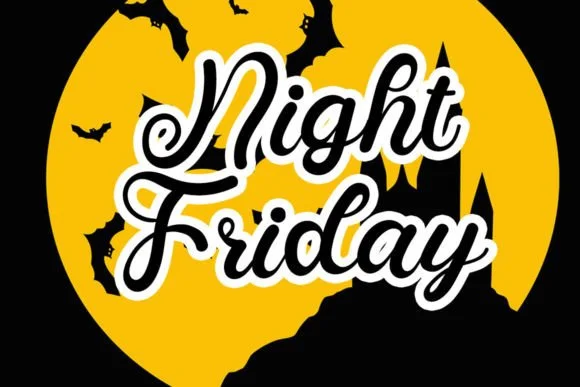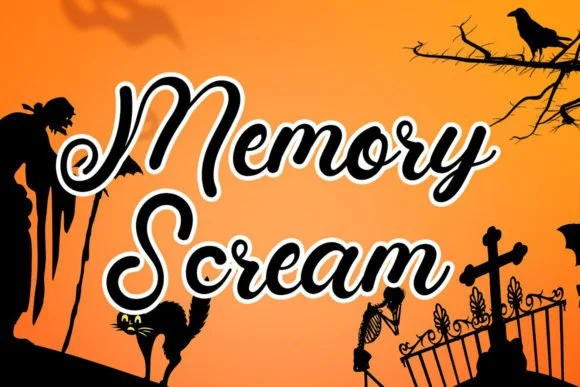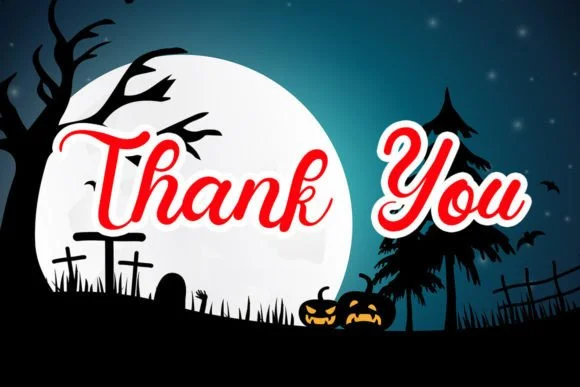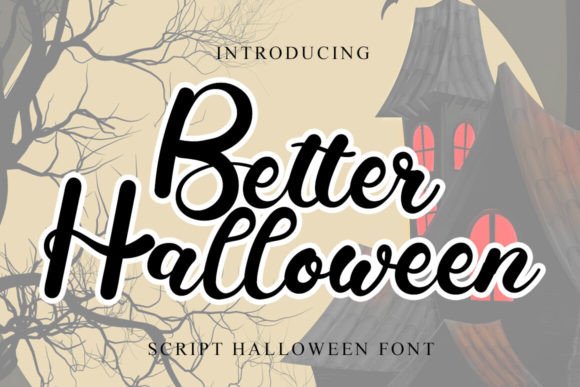
Better Halloween Font
This improved font is perfect for enhanced Halloween celebrations, upgraded spooky decorations, superior Halloween marketing, premium Halloween events, elevated seasonal branding, advanced Halloween displays, improved Halloween invitations, better Halloween experiences, enhanced seasonal communications, and progressively better Halloween messaging materials.
Better Halloween Font is exciting because it represents the evolution and refinement of Halloween typography through its expertly crafted letterforms that embody the continuous improvement and creative advancement that makes each Halloween celebration better than the last. The font features perfectly balanced characters with enhanced proportions and superior details that reflect the way Halloween traditions grow richer and more meaningful with each passing year, incorporating refined flourishes and optimized elements that create typography as polished and effective as the accumulated wisdom of generations of Halloween celebrants who have perfected the art of supernatural celebration. Each letter showcases the commitment to excellence and continuous improvement that makes better Halloween experiences so satisfying, with enhanced curves and superior accents that transform ordinary text into expressions of Halloween refinement that capture the way dedicated celebrants constantly seek to make their Halloween celebrations more memorable, more meaningful, and more magically effective than ever before.
The Better Halloween Font family includes enhanced style variations: Regular, Bold, Light, Superior, and Premium versions. The collection features special improvement elements including refined accents, enhanced flourishes, superior details, and optimized ornaments. Additional components include improved borders, enhanced frames, superior decorations, and progressively better ornamental designs that enhance the font's better Halloween appeal and create cohesive upgraded Halloween themes.
Quality-focused celebrants and improvement-minded Halloween enthusiasts will find Better Halloween Font to be an invaluable resource for creating superior Halloween communications that reflect the commitment to excellence and continuous refinement that makes each Halloween celebration an opportunity for creative growth and enhanced supernatural experiences. This expertly crafted font transforms ordinary Halloween messaging into improved expressions that resonate with audiences who appreciate the dedication to quality and commitment to enhancement that makes better Halloween celebrations so consistently satisfying and progressively more magical.
The typeface includes comprehensive character support with enhanced styling that maintains excellent readability while conveying the superior quality and refined atmosphere of better Halloween celebrations. The font's expertly improved design ensures consistently superior results across both amateur enhancement applications and professional upgraded Halloween productions.
Perfect for premium Halloween events, enhanced celebrations, superior seasonal marketing, and progressively improved Halloween communications, this font delivers consistently better visual impact that communicates quality commitment, continuous improvement, and the satisfying truth that Halloween celebrations can always be made better through dedicated attention to excellence and creative refinement.